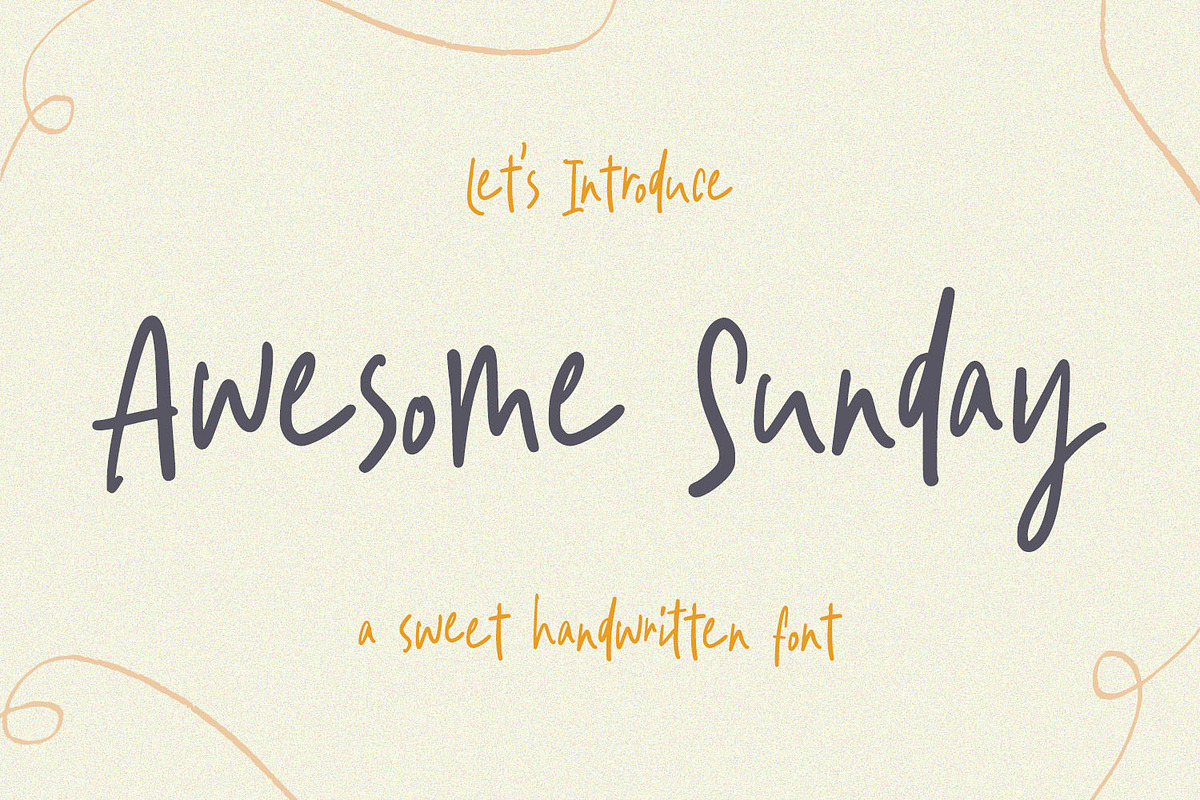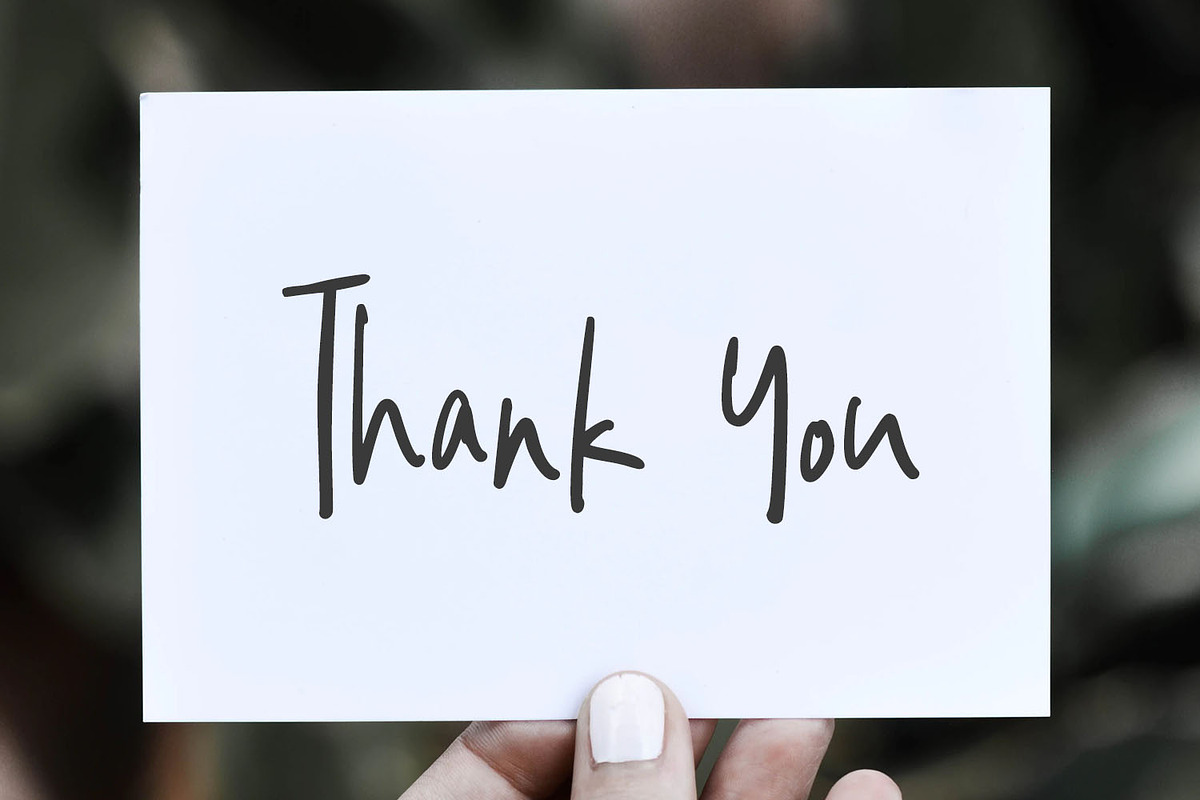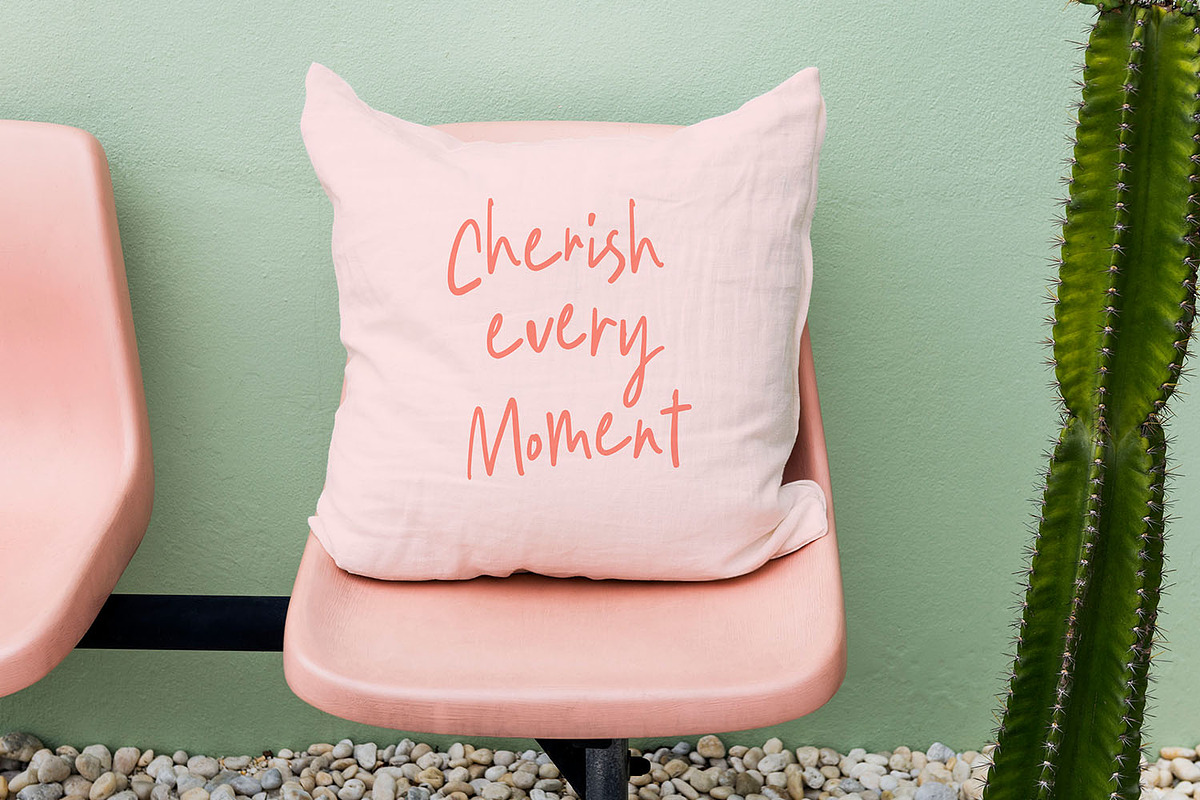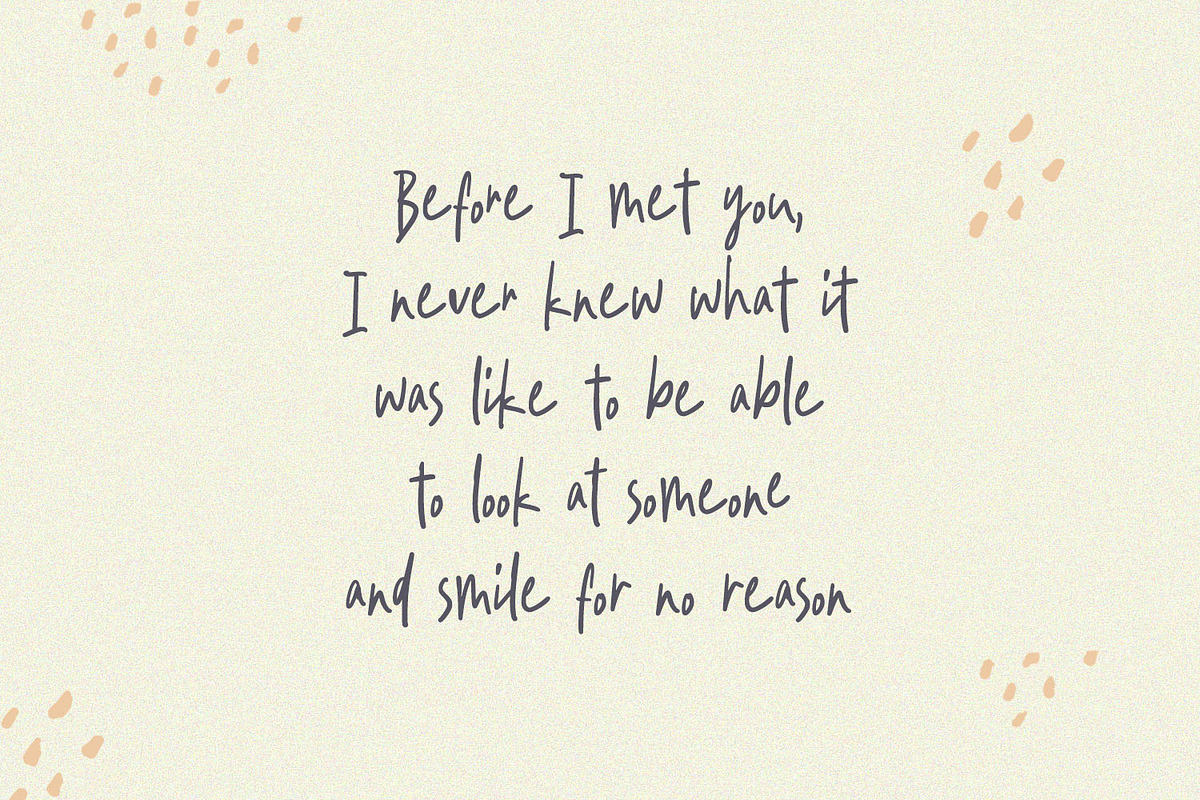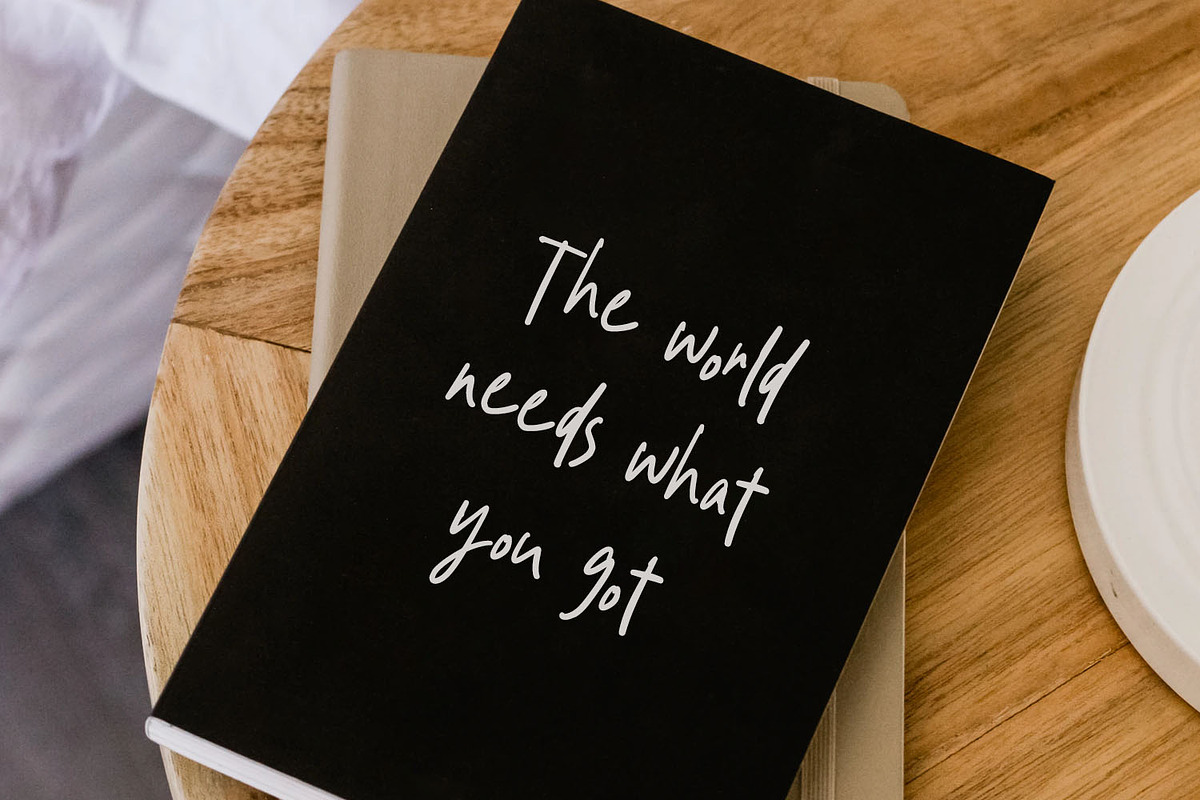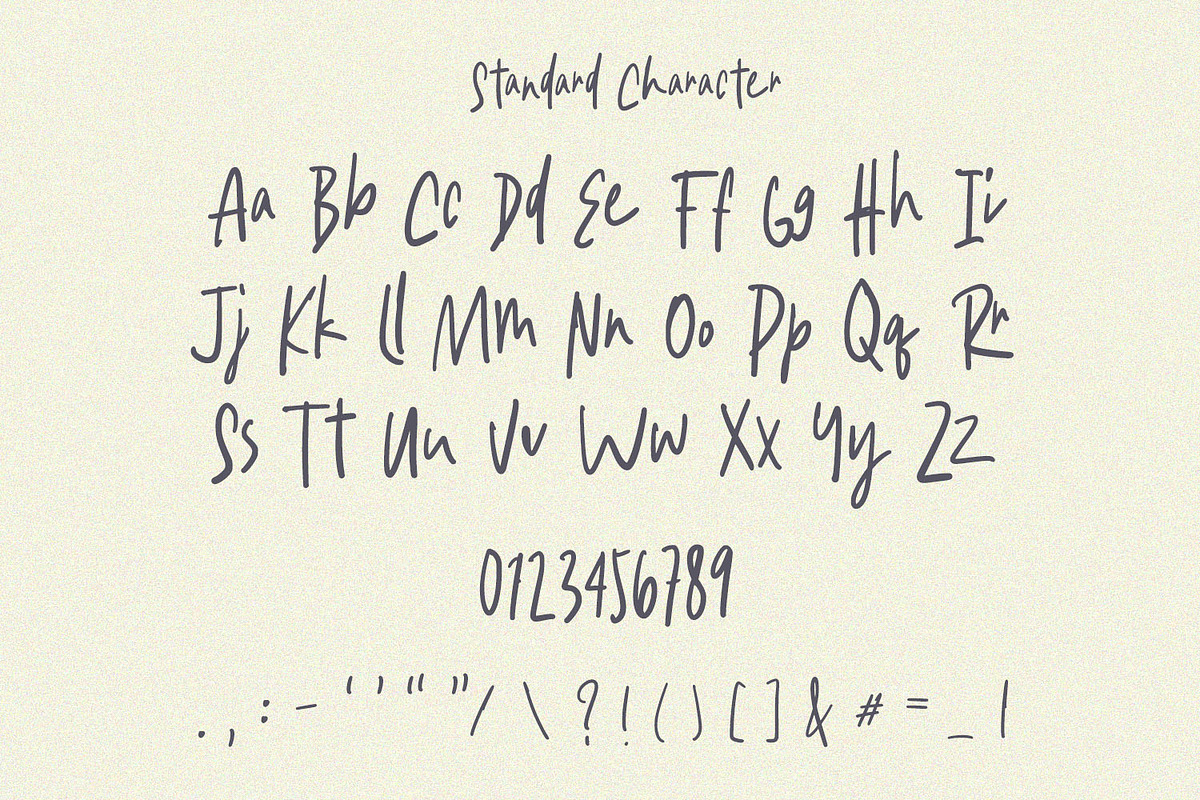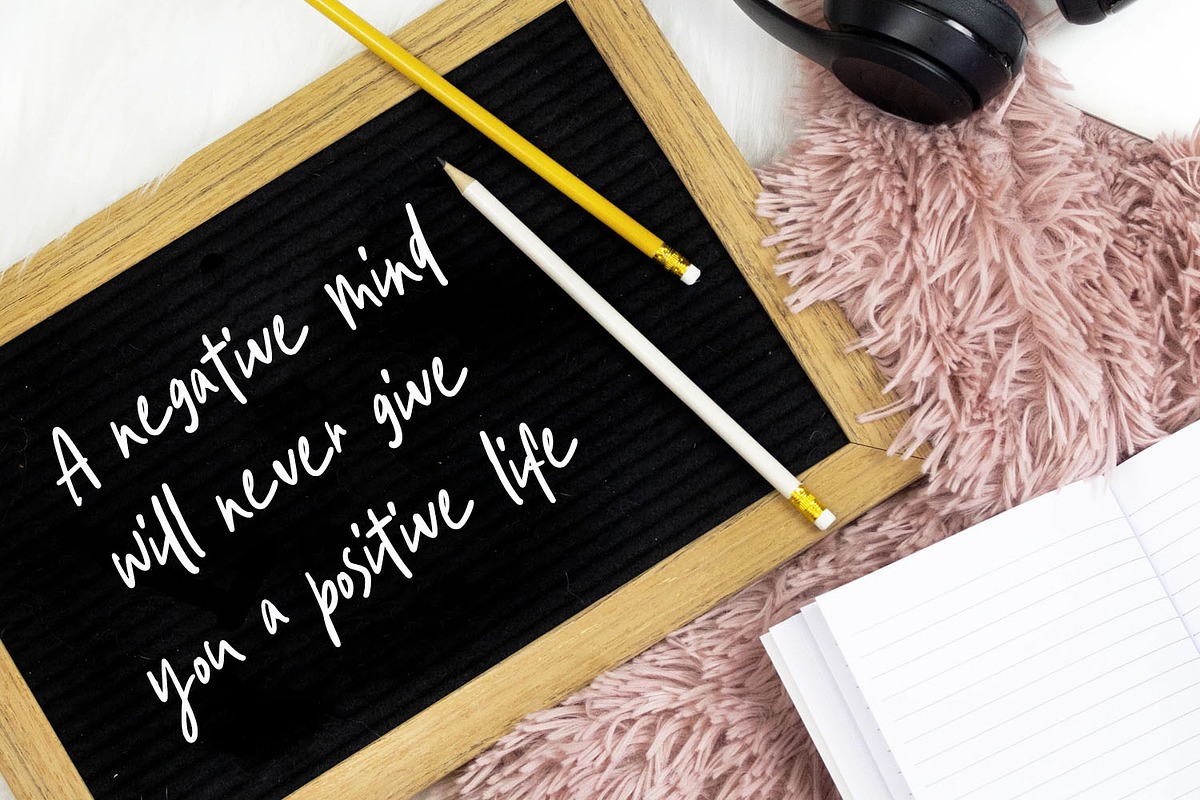
Awesome Sunday Cute Handwritten Font
Awesome Sunday is a natural and stylish handwritten font. It will add an authentic touch to any design idea. Add it to your most creative ideas and notice how it makes them come alive!
This font is perfect for many different projects such as logos & branding, invitation, stationery, wedding designs, social media posts, advertisements, product packaging, product designs, label, photography, watermark, special events, or anything.